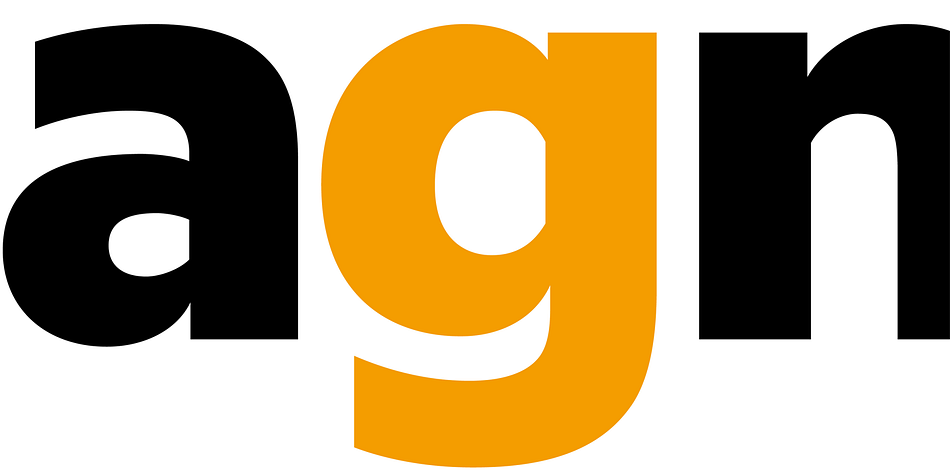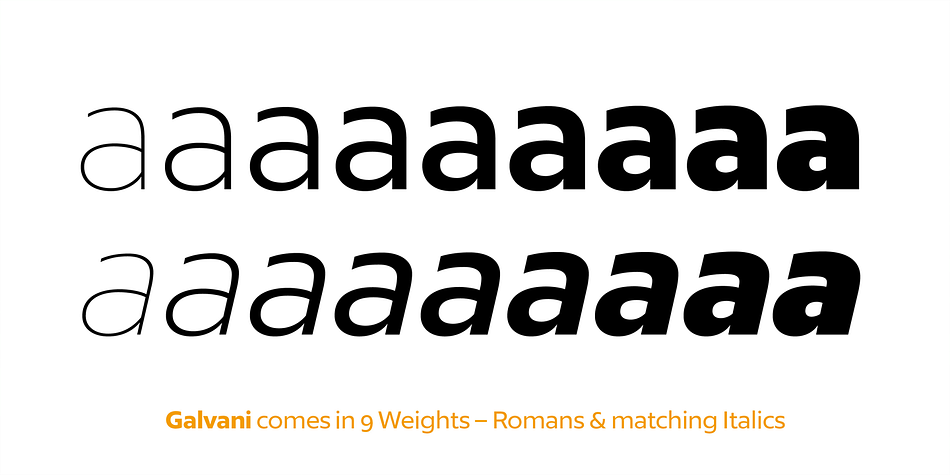
Galvani
Designed by Dieter Hofrichter, Galvani is a sans serif font family. This typeface has eighteen styles and was published by Hoftype.
Galvani offers a new geometric Sans Serif with humanistic displays. With its straight lines and rectangular shapes, and its clean and coolish appearance, Galvani unites some of the principal sans design features of the last decades.
Galvani consists of 18 styles and is well equipped for advanced typography. It comes in OpenType format with extended languagesupport.
All weights contain small caps, ligatures, superior characters, proportional lining figures, tabular lining figures, proportional old style figures, lining old style figures, matching currency symbols, fraction- and scientific numerals and matching arrows.